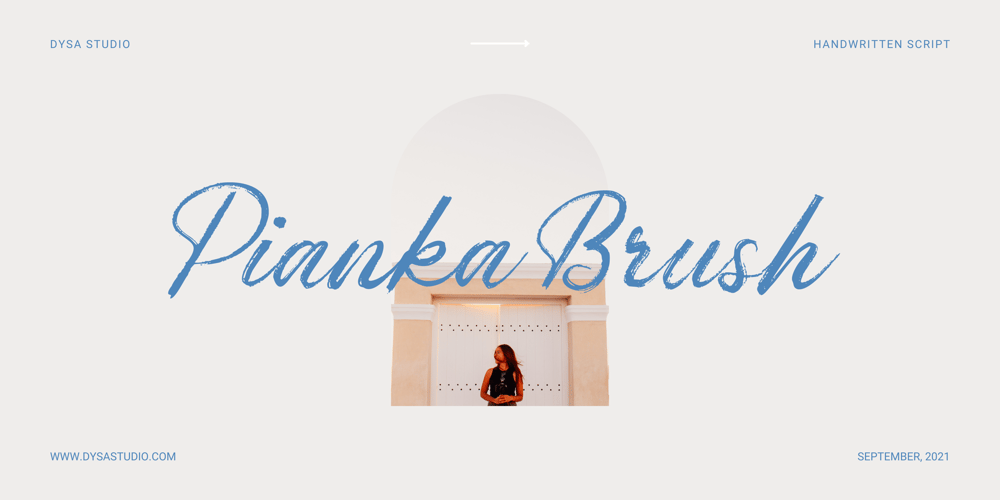
Pianka Brush Font Family was designed by Yusup Saputra and published by DYSA Studio. Pianka Brush contains 1 styles and family package options. Pianka Brush is a new Handwritten Script Font. This another collection of handwritten is perfect for your next branding project, excellent for your business. Pianka Brush have a natural edges, so this font gives an authentic handcrafted feel style.